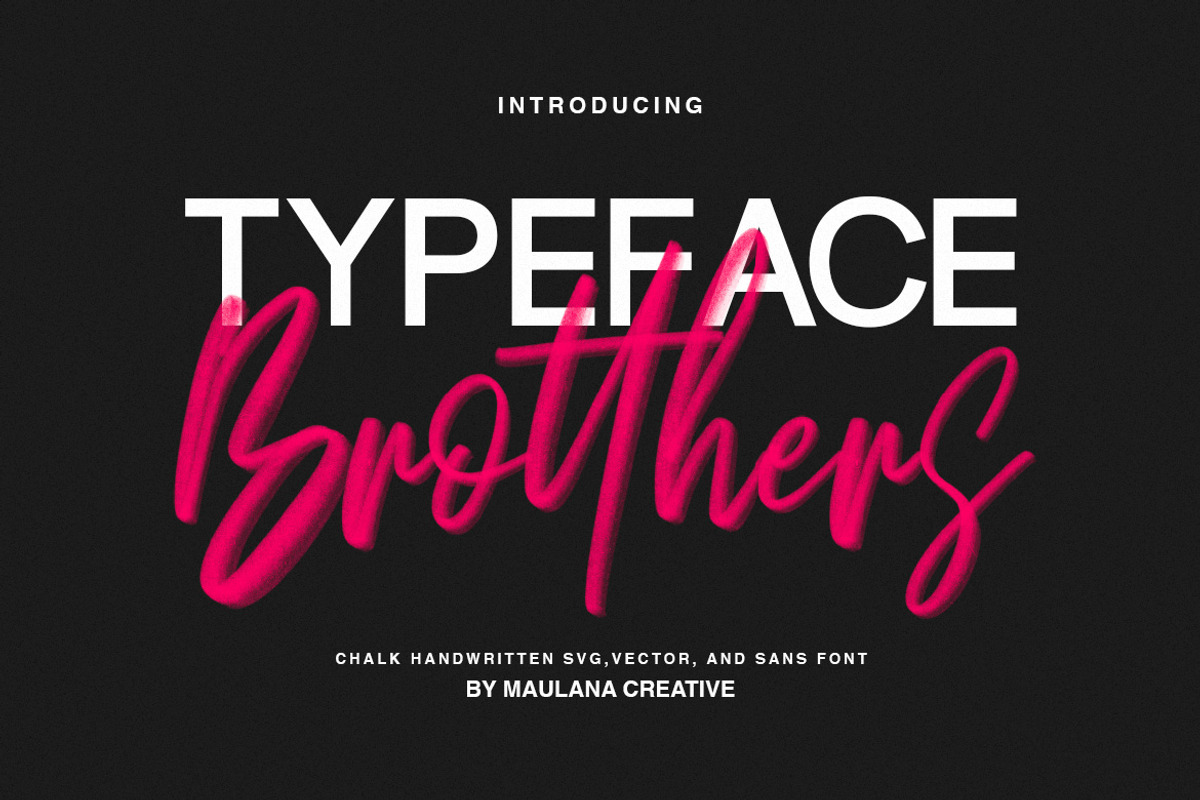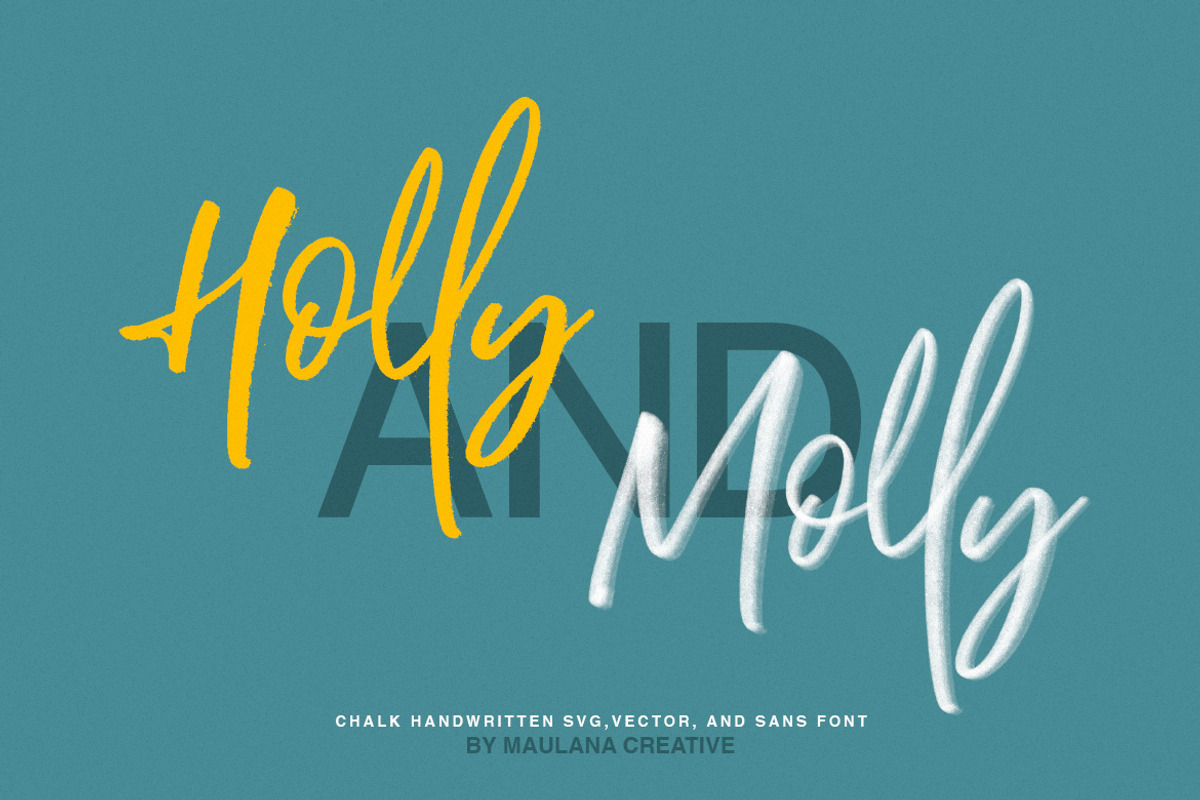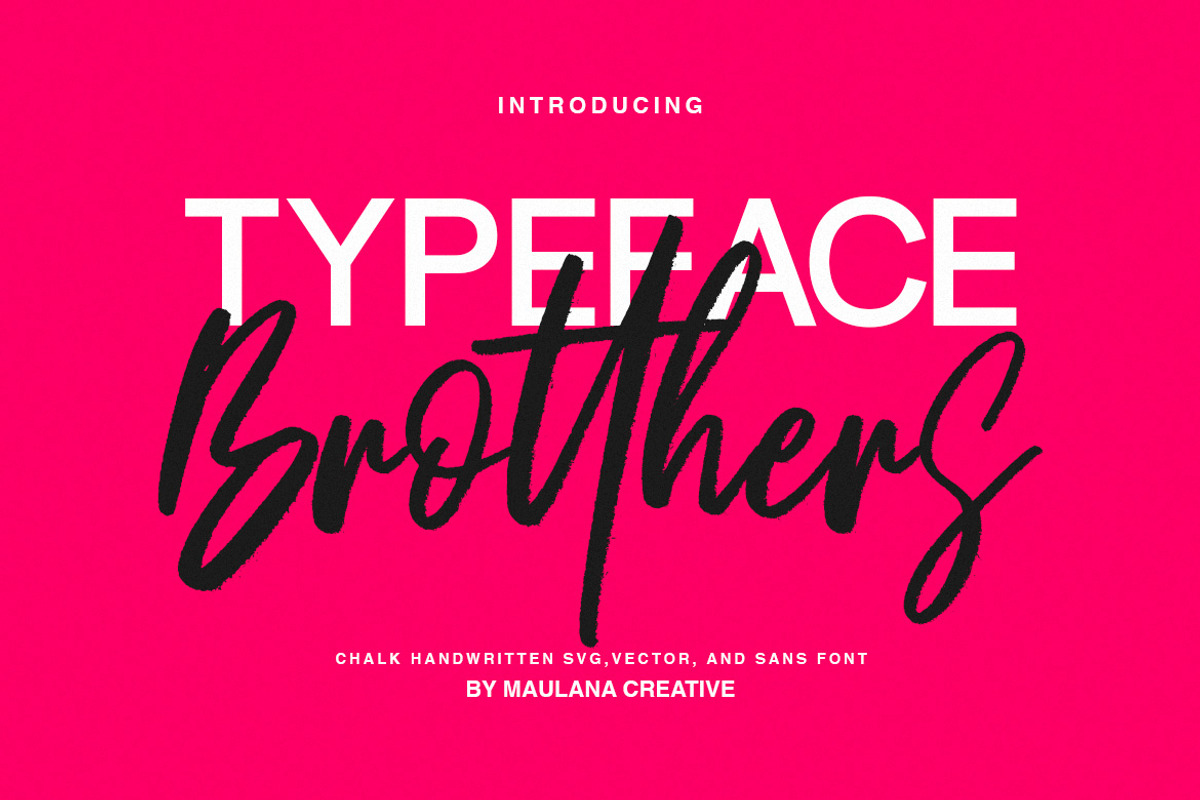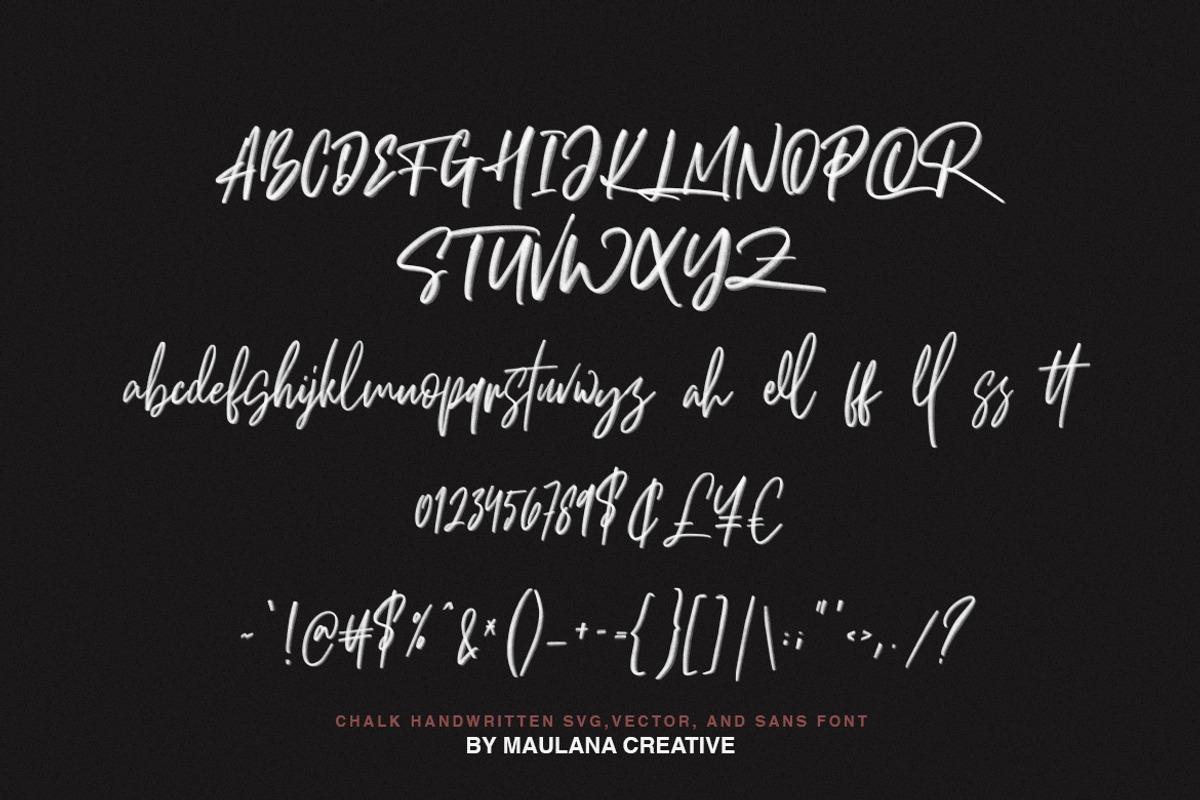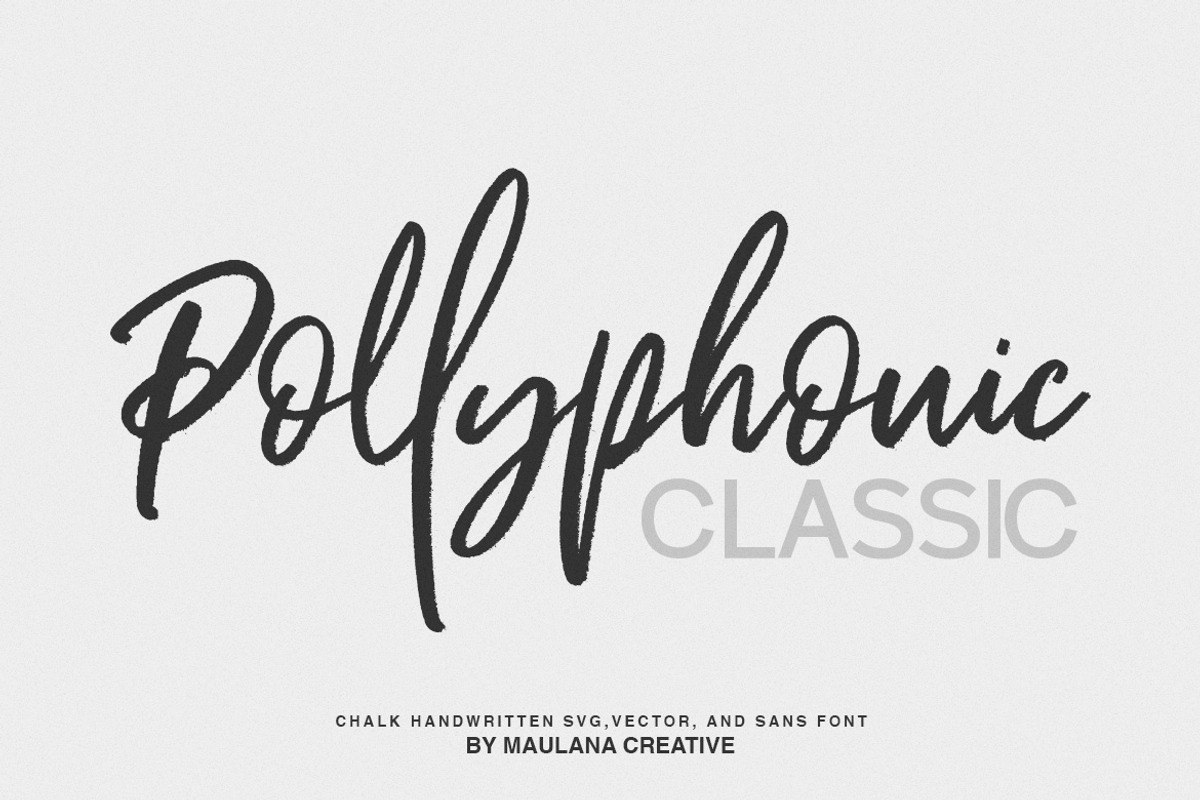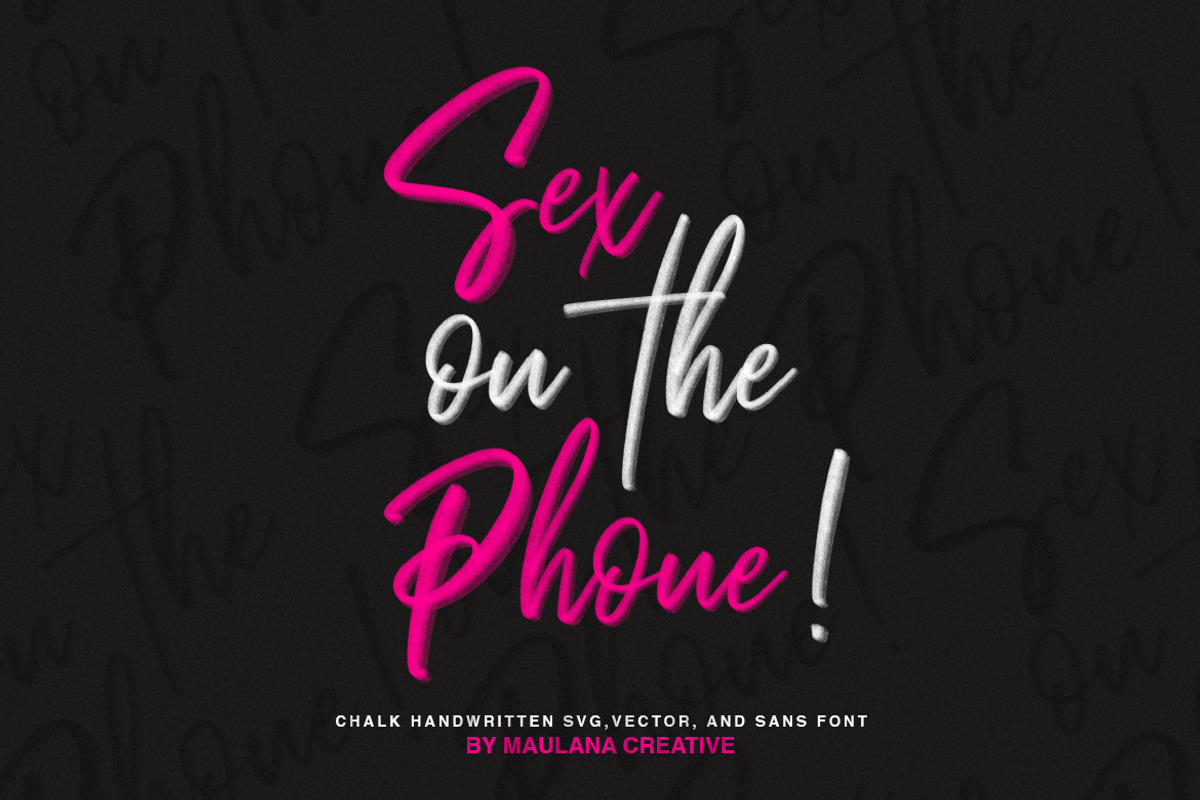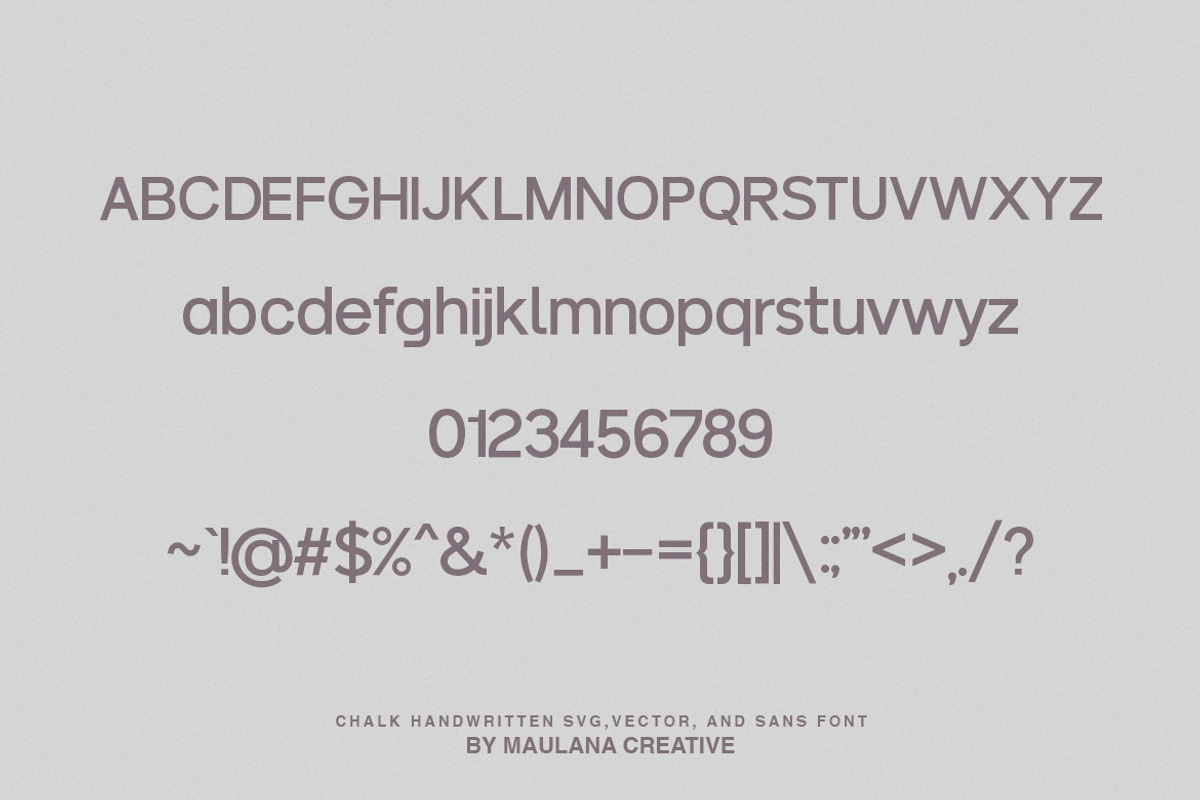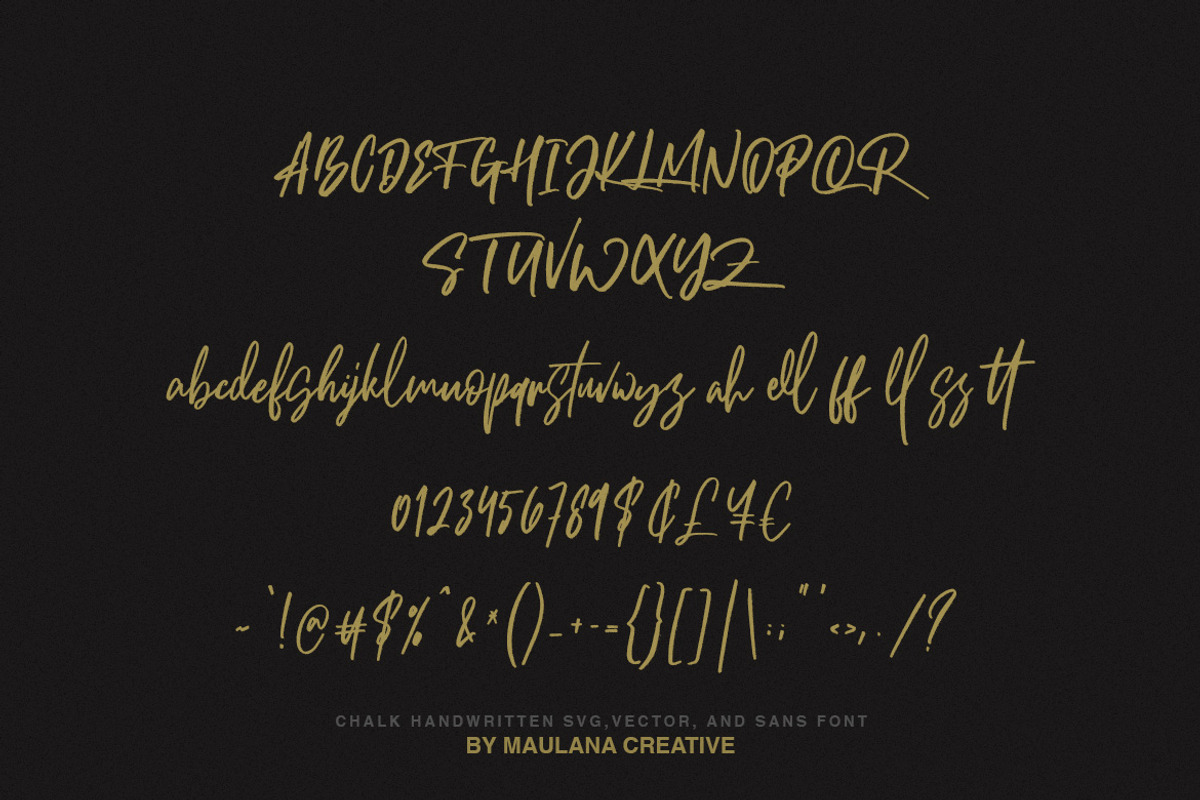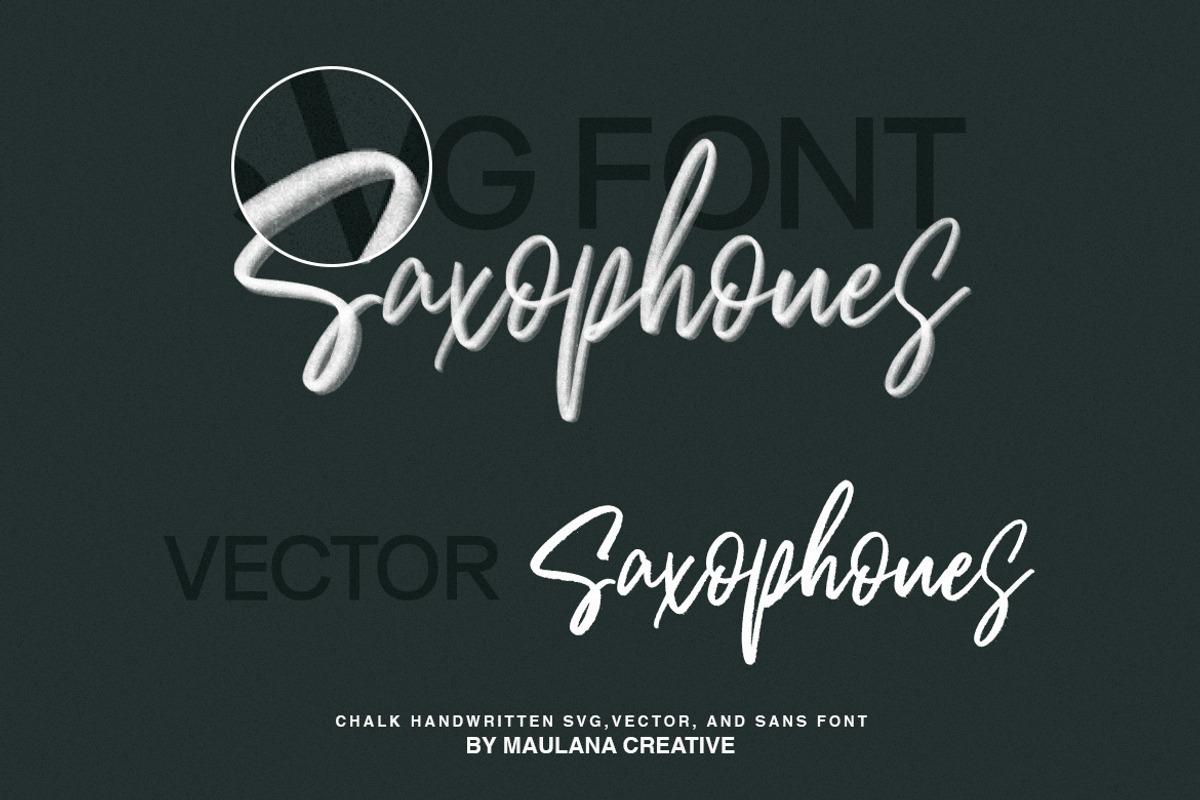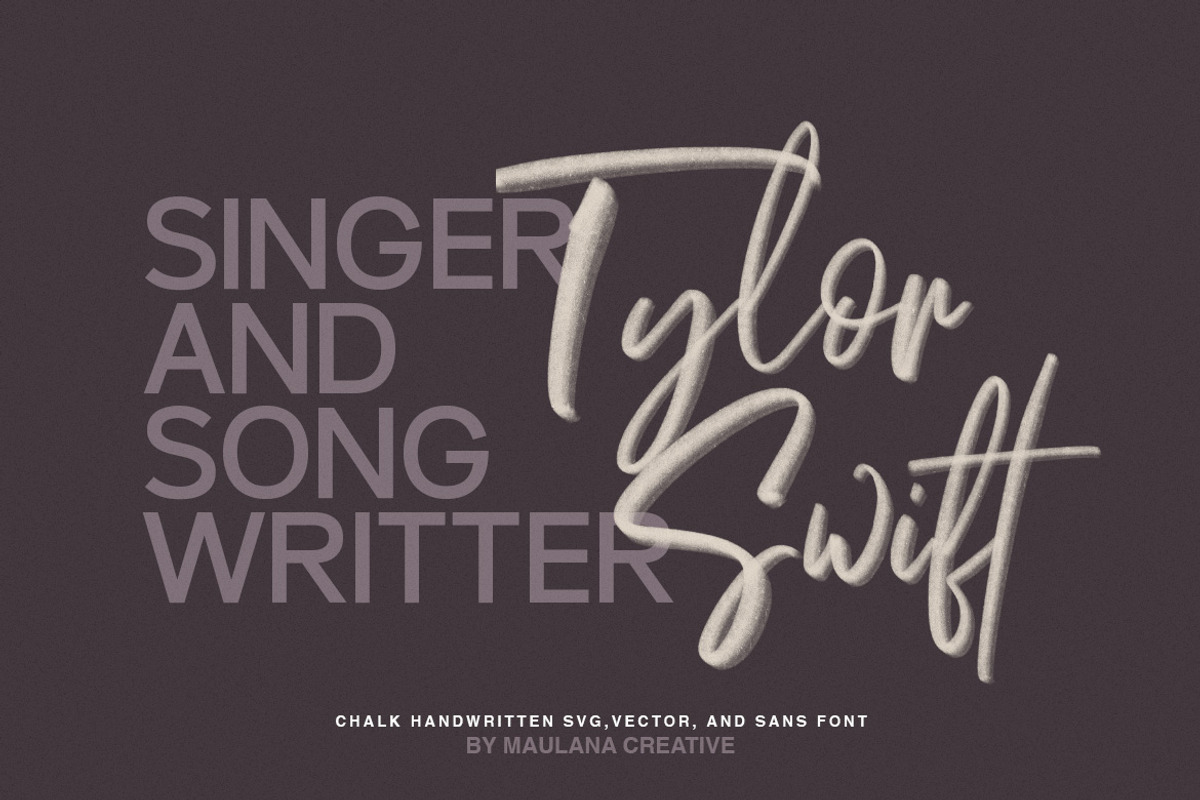
Brotthers SVG Brush Font
Give your designs an authentic brush handcrafted feel. "Brotthers" is perfectly suited to signature, stationery, logo, typography quotes, magazine or book cover, website header, flyer, clothing, branding, packaging design and more.